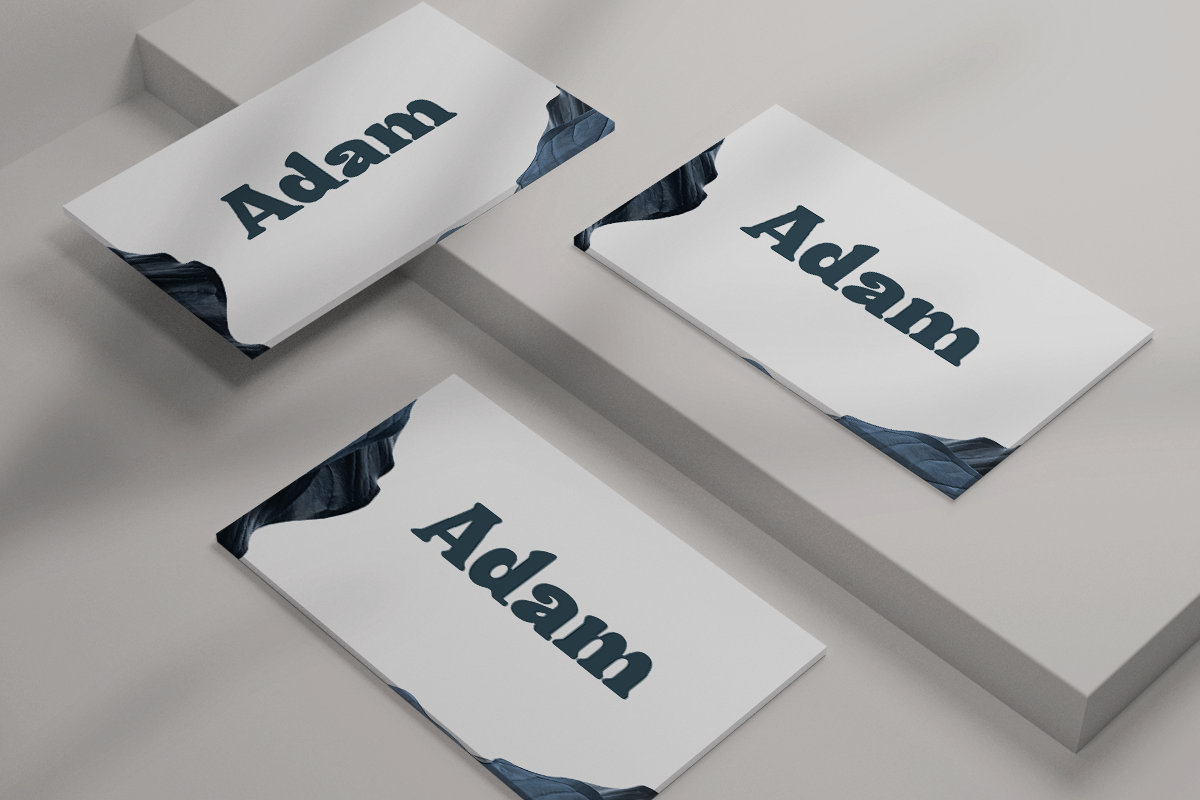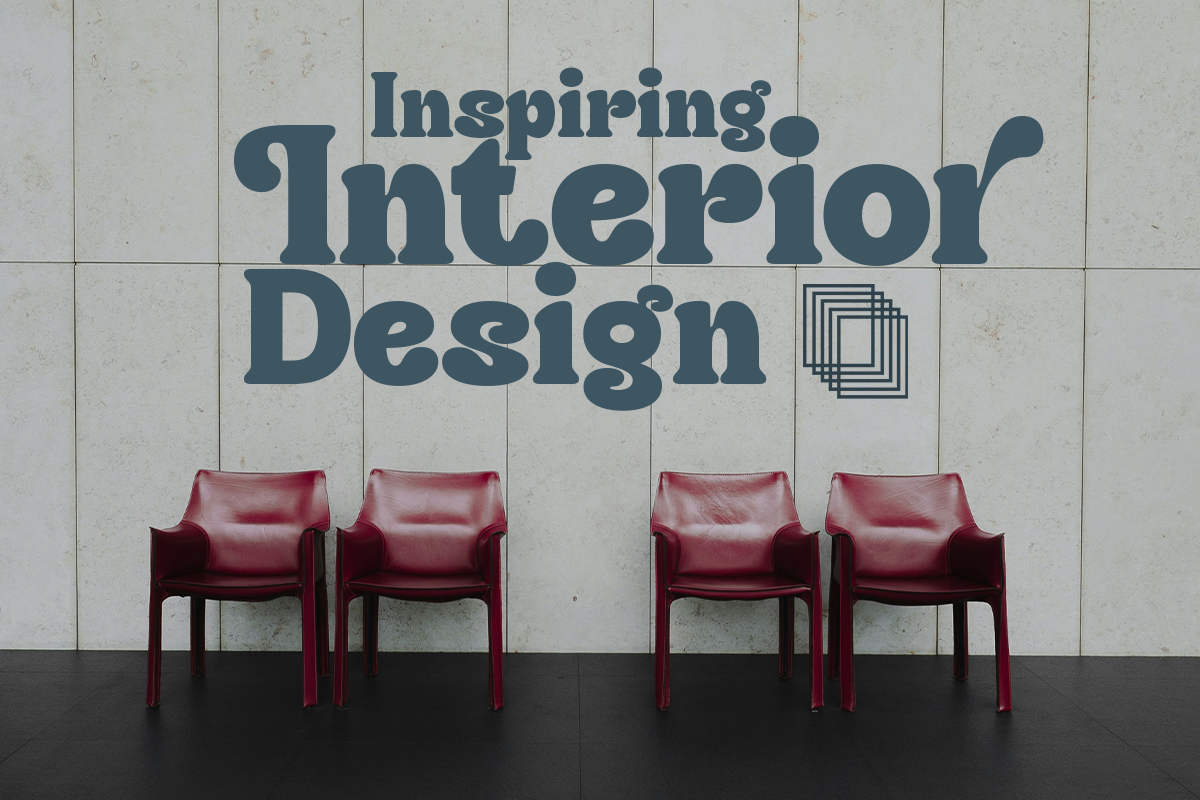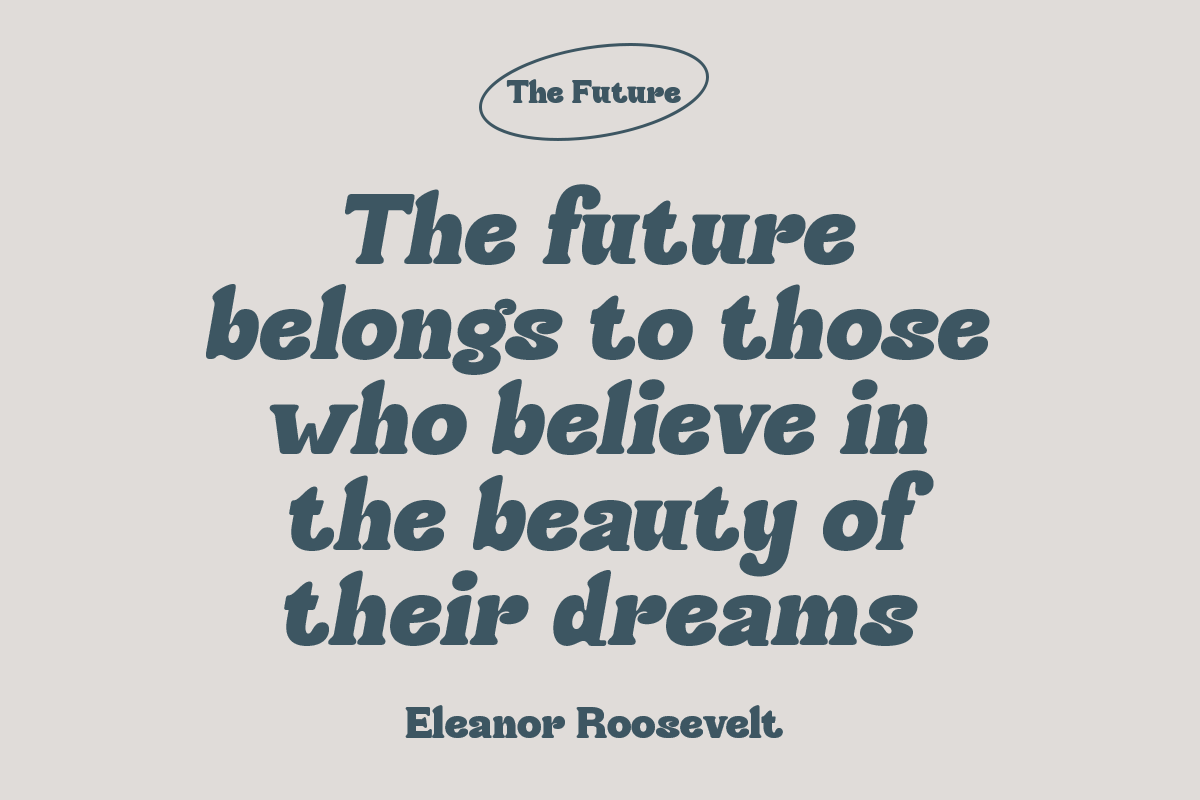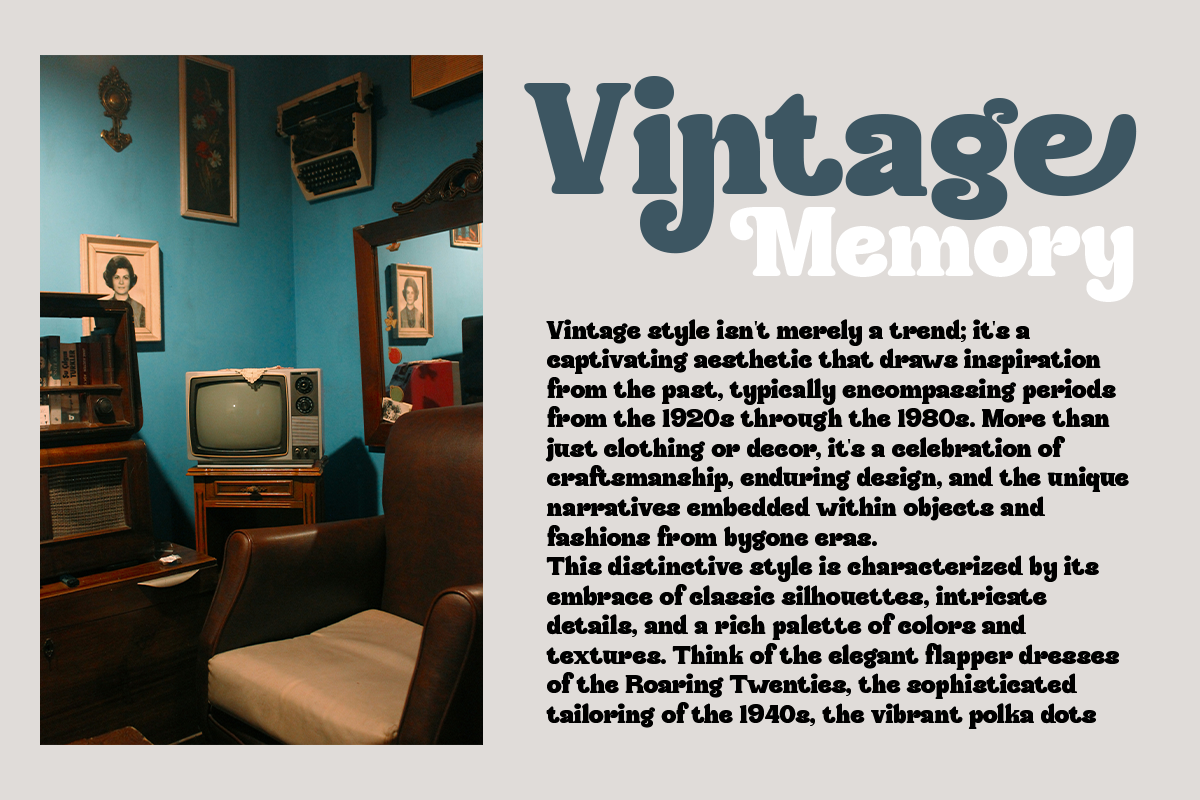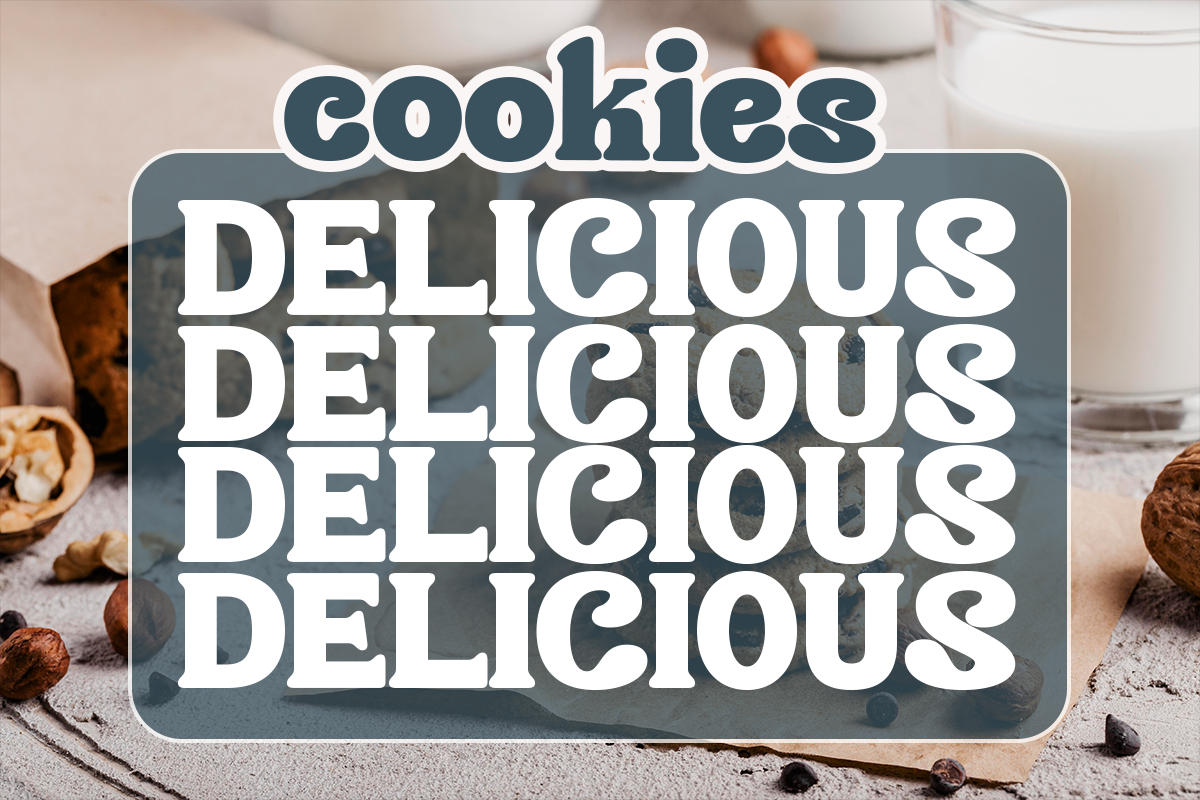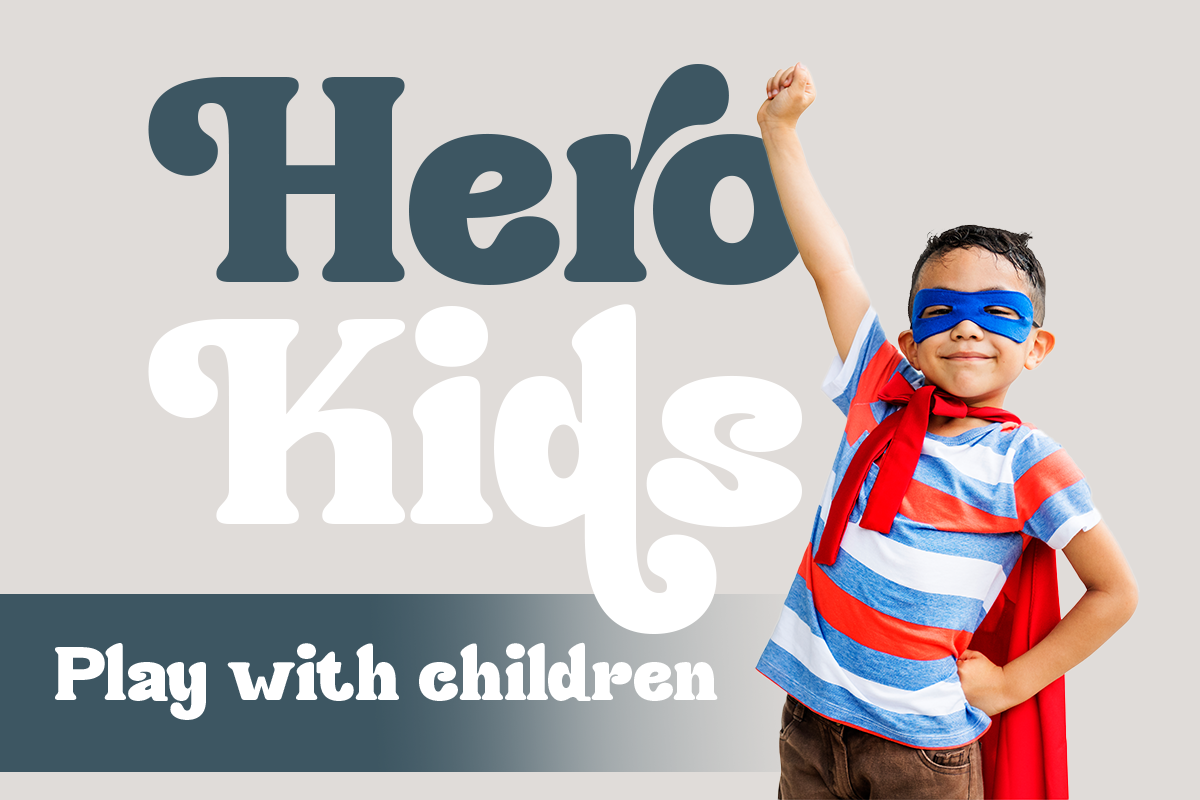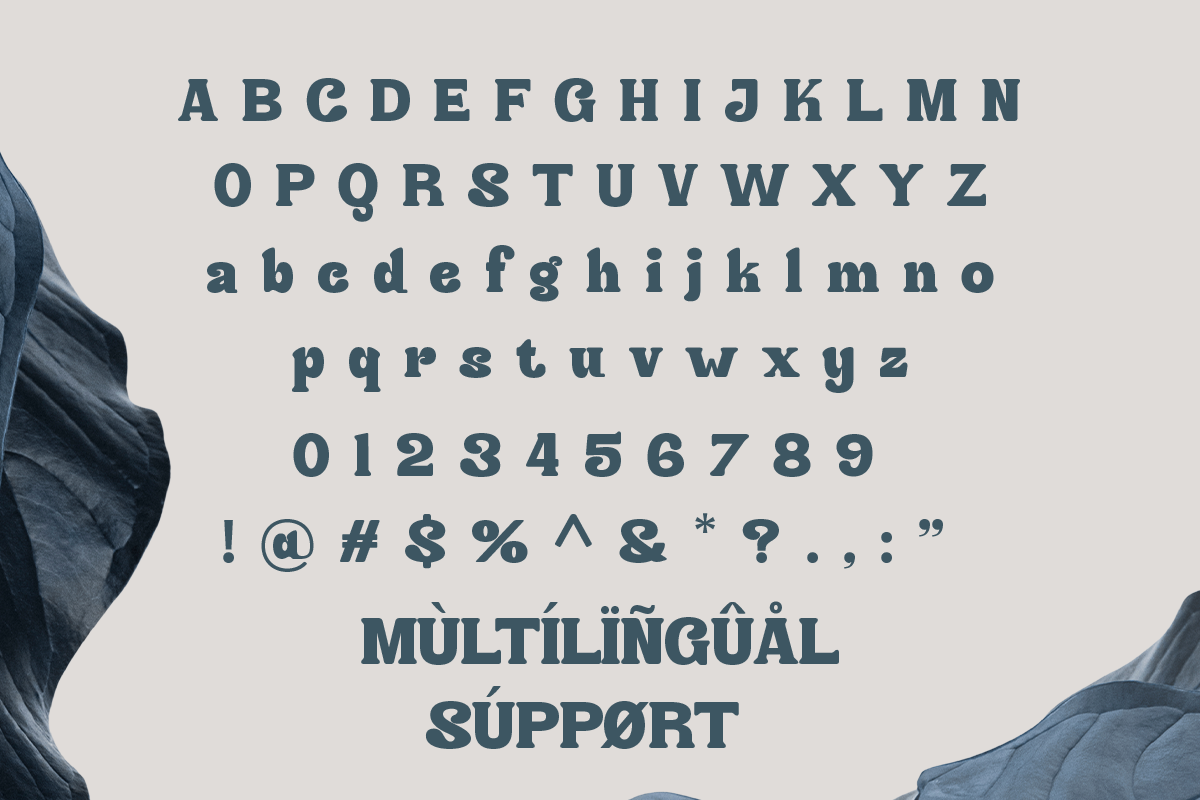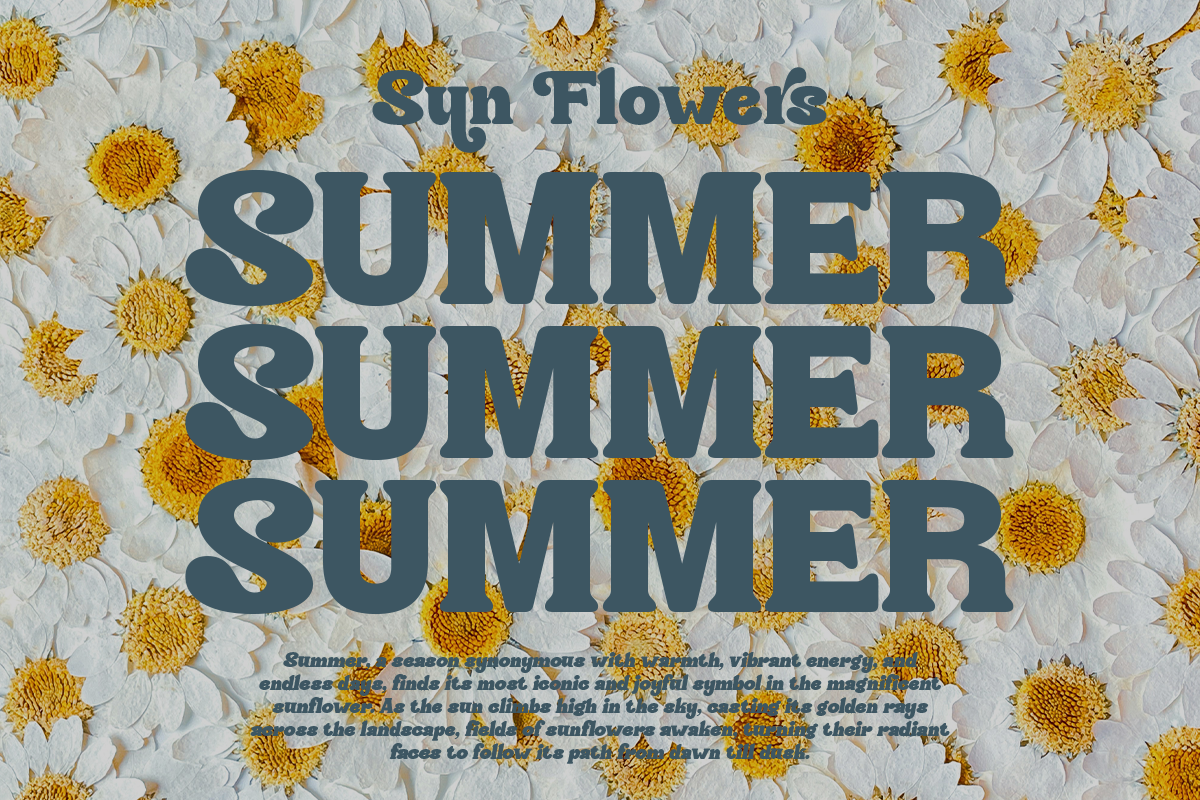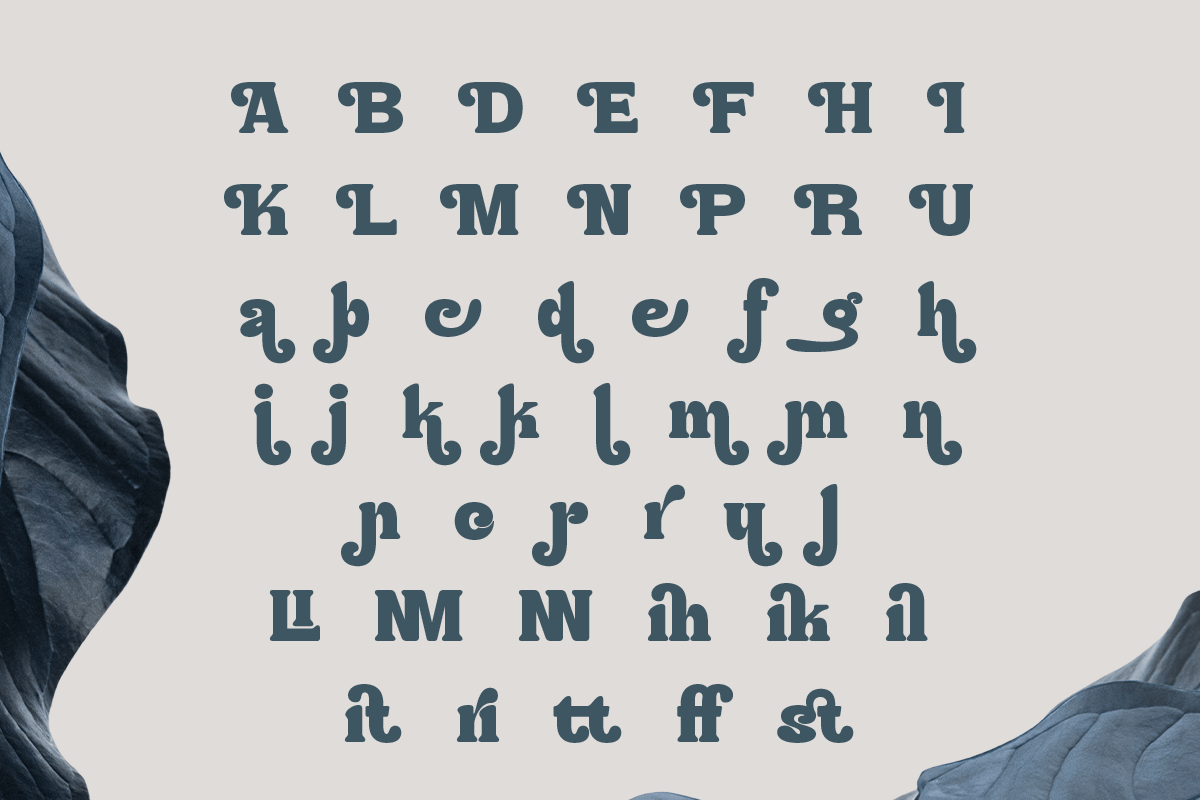
Dikira - Modern Bold Retro Serif
Dikira is a bold serif typeface with retro energy and contemporary polish. Each letterform features soft edges and playful curves, perfect for retro branding, modern packaging, and expressive headlines. It’s bold yet friendly — a versatile display font made for creative projects that stand out.
- Uppercase, Lowercase, Numbers, Punctuation
- Regular & Italic
Perfect For: Logo design, poster art, packaging design, retro branding, editorial titles, and product labels.